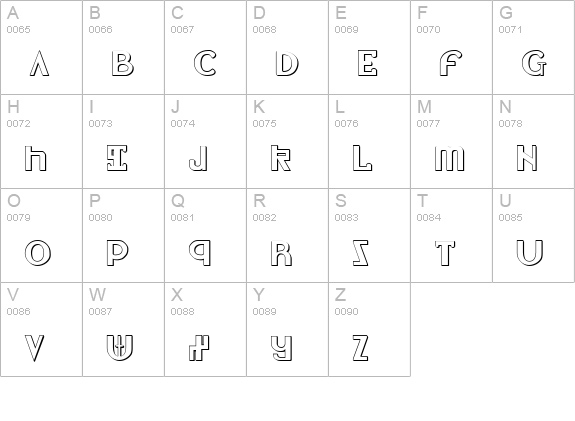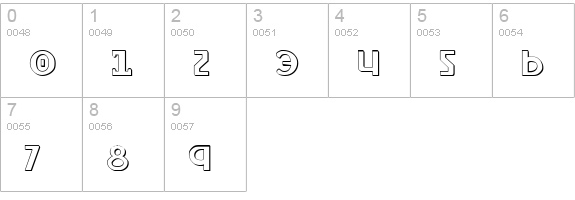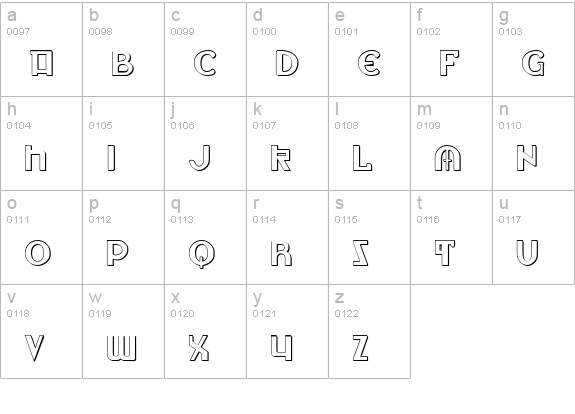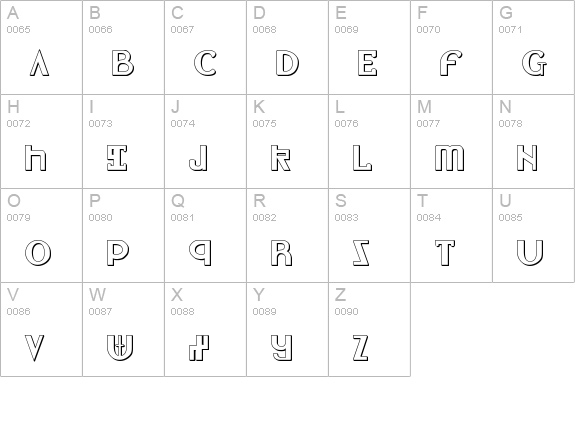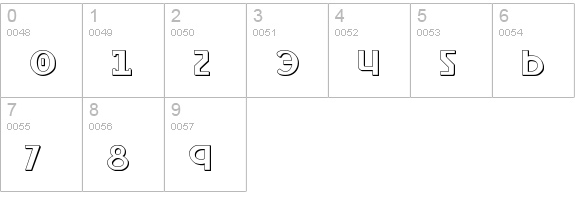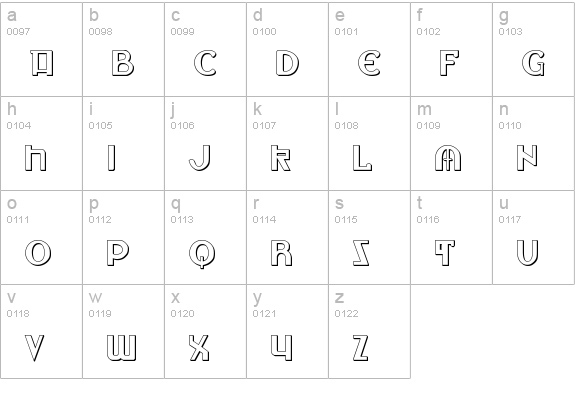
Lionheart Shadow Font Details
Lionheart Shadow font is a striking and bold typeface that exudes power and confidence. With its sharp lines and intricate detailing, this font is perfect for making a statement in your designs. The Lionheart Shadow font is a versatile choice for a wide range of projects, from branding to web design to print materials. The unique shadow effect adds depth and dimension to your text, making it stand out on the page. Best of all, the Lionheart Shadow font is available for free download at FontsMarket.com. This means you can easily access this eye-catching font and incorporate it into your projects without any cost. Don't miss out on the opportunity to add Lionheart Shadow font to your font library today!